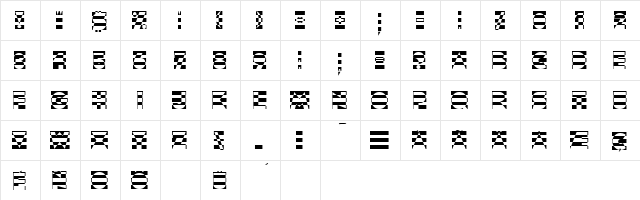
Exclusive Regular
Design Context for Exclusive Typeface
Exclusive is a composed and adaptable typeface that performs quietly and consistently across a wide range of design contexts.